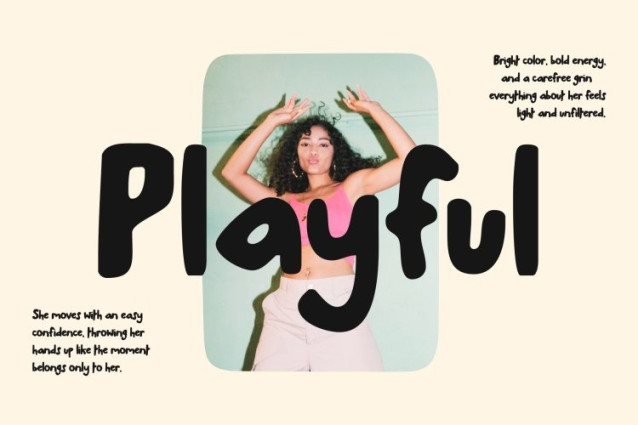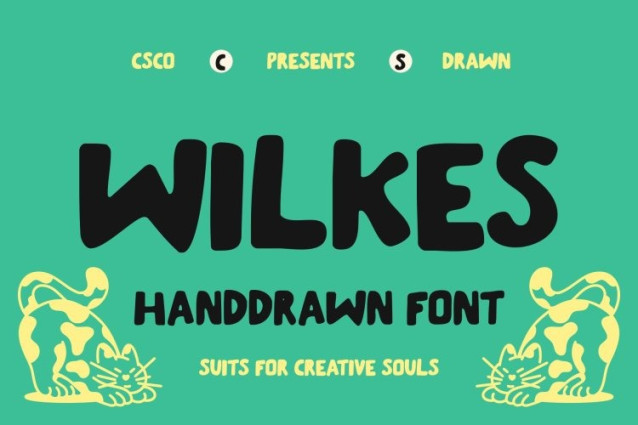
CS Wilkes Drawn Font
CS Wilkes Drawn Font This is a joyful and energetic display font designed to spread warmth and creativity. Its quirky, cute letterforms and playful proportions create an instantly friendly impression, making it perfect for designs that aim to feel cheerful, approachable, and full of life. The drawn effect adds a handcrafted touch that enhances its charm and individuality.
Expressive Shapes with Handcrafted Warmth
Each character is built with soft curves and lively details, giving the font a sense of motion and personality. The hand-drawn nuances introduce gentle imperfections that make the type feel organic and expressive, while balanced proportions keep it visually comfortable and readable.
Perfect for Youthful and Creative Designs
Ideal for children’s branding, greeting cards, packaging, posters, social media content, and lifestyle products, this font brings a playful spark to any visual. Its fun rhythm and friendly forms help designs feel modern, imaginative, and engaging.
Versatile Font for Fun and Expressive Branding
Blending modern simplicity with whimsical energy, this font adapts easily across creative themes. Whether used for logos, headlines, or titles, it stands out with personality while maintaining a warm, inclusive, and approachable tone.